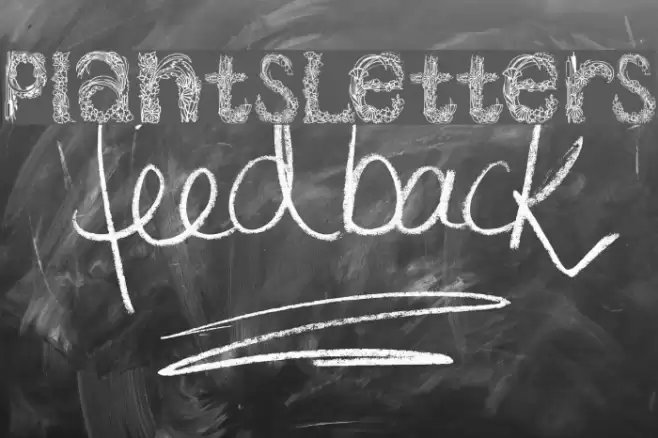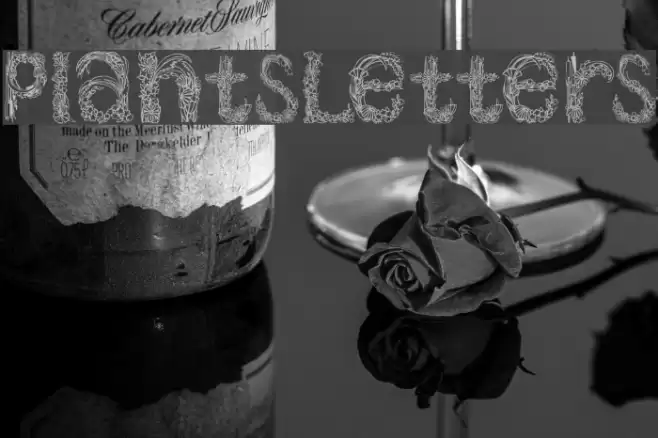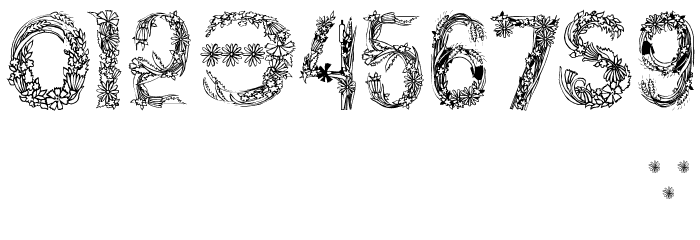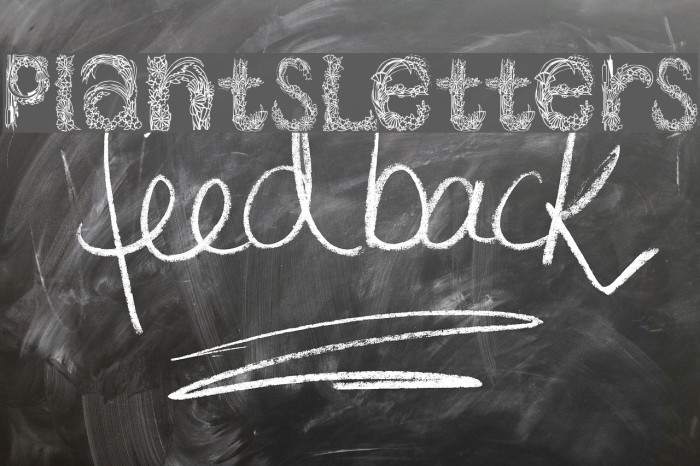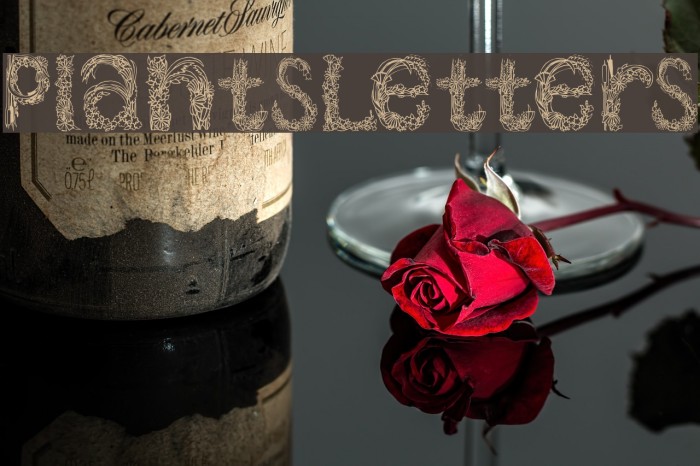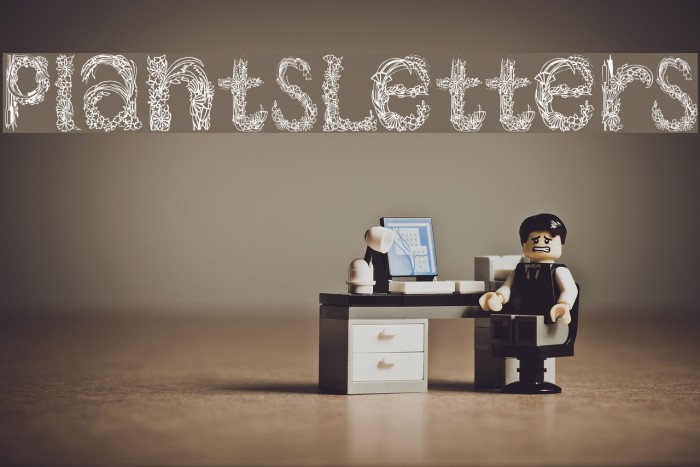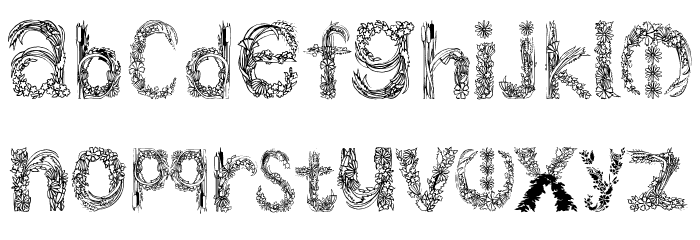
PlantsLetters Font
PlantsLetters Description
This font is a decorative and intricate design that incorporates elements of nature, specifically plants and flowers, into each character. The letters and numbers are adorned with detailed floral patterns, giving them a whimsical and organic appearance. The style is highly decorative, making it ideal for projects that require a touch of nature or a unique, artistic flair. The characters are well-defined, yet the embellishments create a complex visual texture that draws the eye. This font is perfect for creative projects where a natural or botanical theme is desired.
A decorative font with intricate floral designs on each character from Uncategorized fonts.
- Proposed Projects: Ideal for wedding invitations, eco-friendly brand logos, garden-themed event posters, or any project needing a natural, artistic touch.
- Use Case: Logos, Headlines, Artistic designs